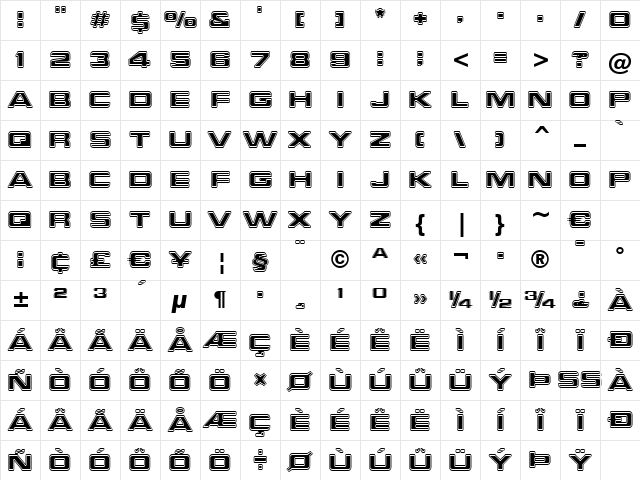
Millenium BdEx BT Bold Extended
Style: Bold Extended
Millenium BdEx BT Family
Design Context for Millenium BdEx BT
Millenium BdEx BT is a composed and adaptable typeface that performs quietly and consistently across a wide range of design contexts. Its bold stroke weight gives it real presence on the page.